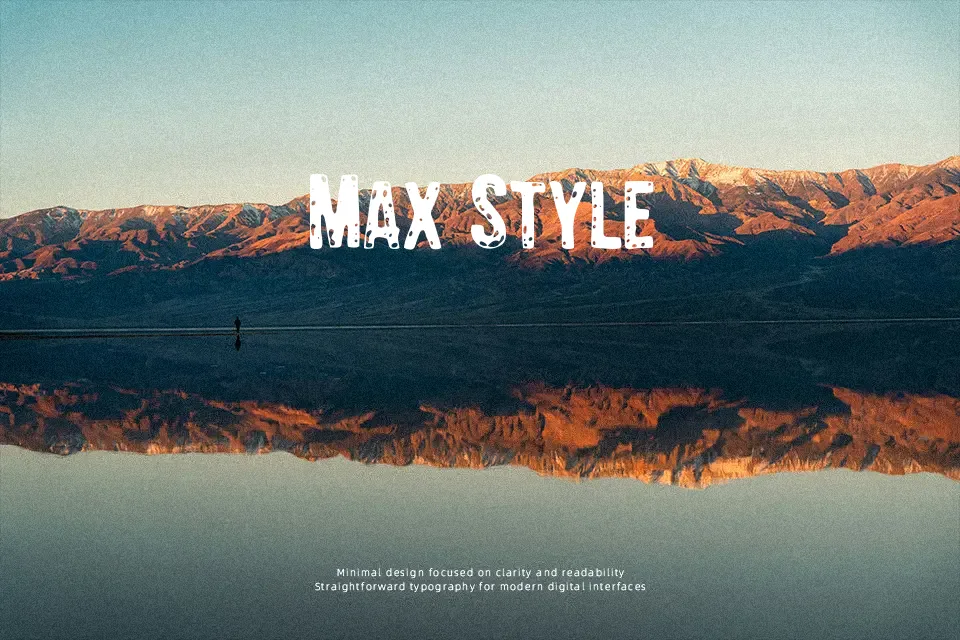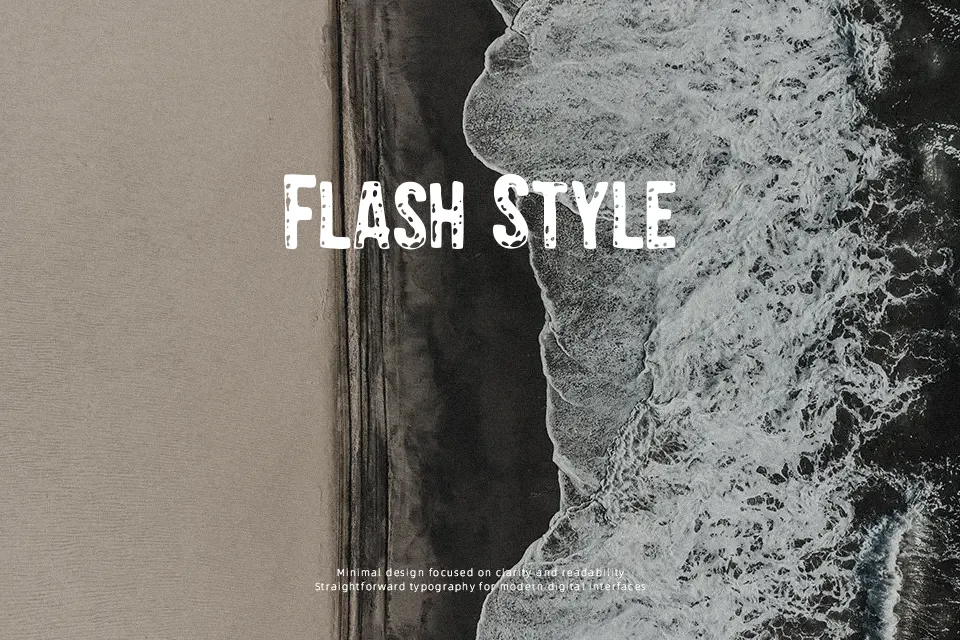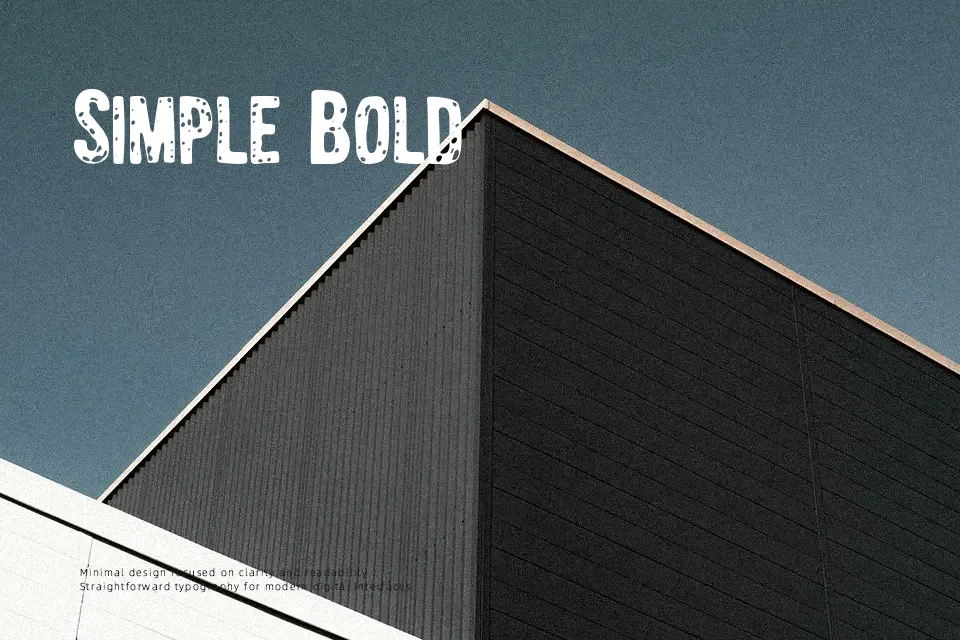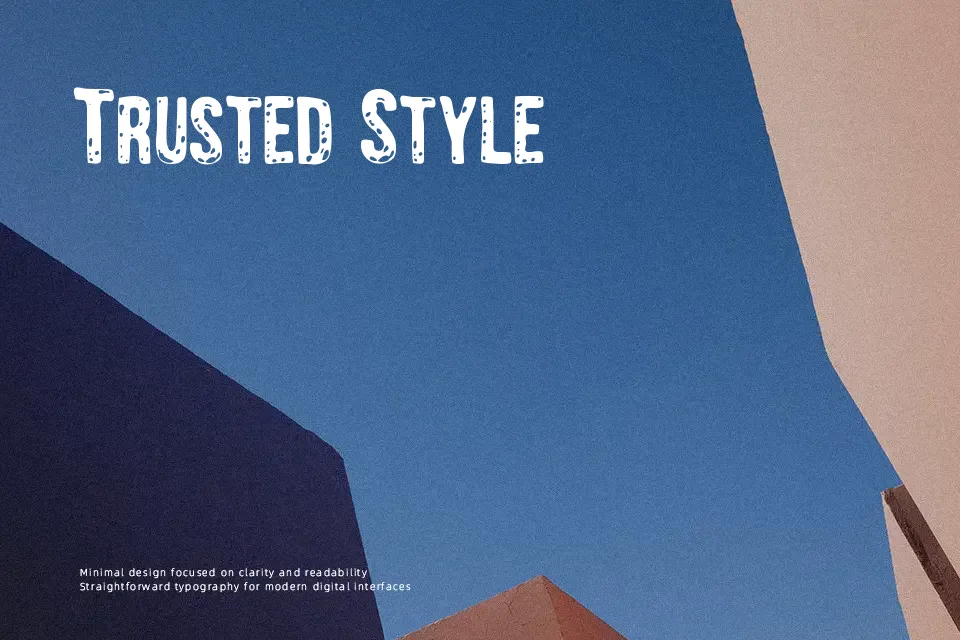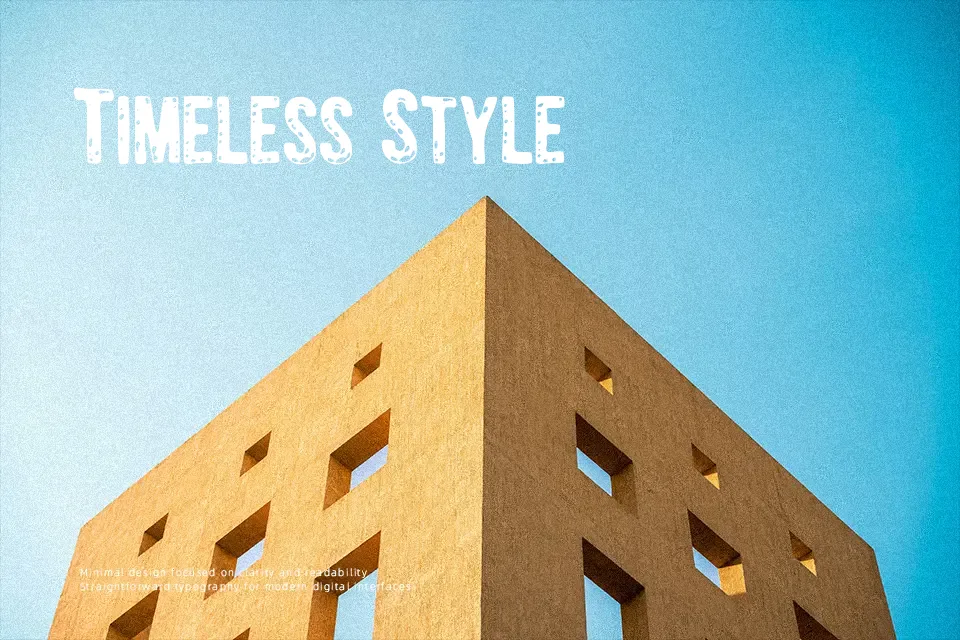
Barrio Chino Font
Heavy strokes meet deliberate roughness in Barrio Chino — a display typeface that reads less like a design choice and more like something scraped off a city wall. The letterforms carry uneven texture and strong weight, giving headlines an immediate, street-worn presence. It suits nightclub flyer headers, underground music promotions, and urban fashion labels that lean into grit rather than gloss. That said, legibility drops quickly at small sizes, and the aggressive visual noise makes it unsuitable anywhere text needs to breathe or be skimmed fast. If your layout demands subtlety, this font will fight you — but in the right context, that friction is exactly the point.
Best For:- Street art and graffiti-style event posters
– Tattoo shop signage and promotional cards
– Urban streetwear brand identity headers
– Underground music and nightlife flyers
Not Ideal For:- Body text or long reading passages
– Corporate or professional documents
– Children’s content or family-oriented materials
– UI labels and navigation elements
Perfect for advertising, branding, and logo, with a bold and decorative style.